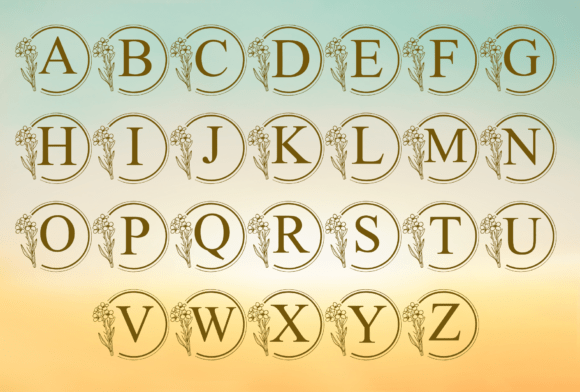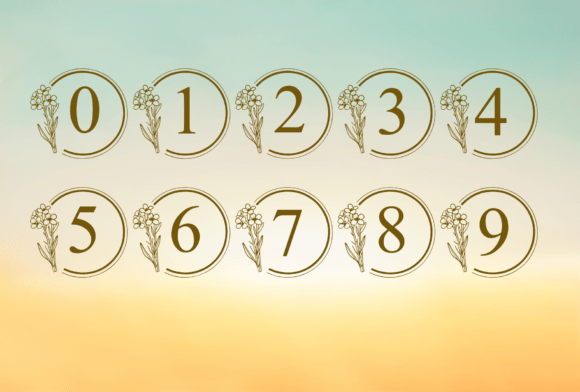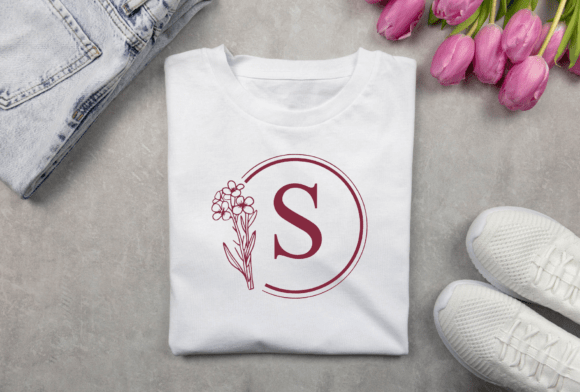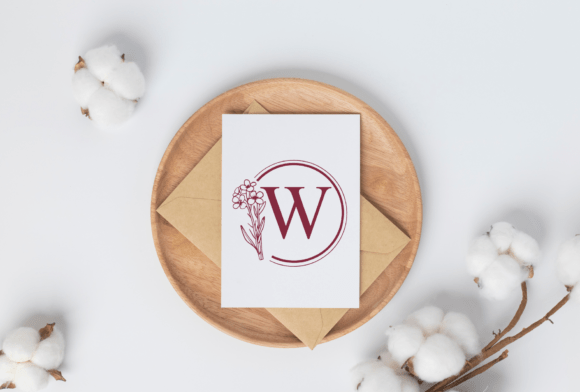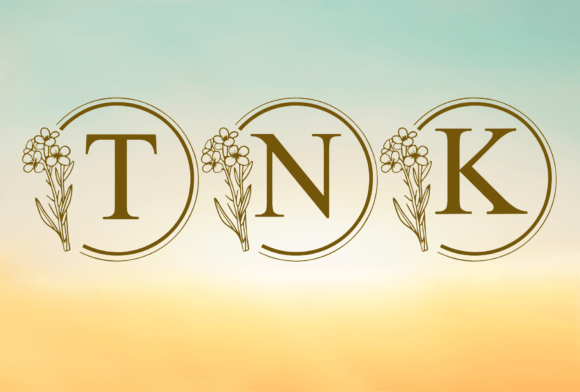
Introduction to Beauty Monogram Font
Do you remember the thrill of creating your first design project? The rush of excitement as you gathered your thoughts, and the satisfaction of bringing your vision to life? For designers, there’s no greater joy than working on a high-quality, creative project that showcases their skills and style.
As you embark on your next design adventure, you may find yourself searching for the perfect font to elevate your project. That’s where the Beauty Monogram Font comes in – a stunning combination of elegant serif and script elements that exudes sophistication and femininity. With its clean lines, botanical accents, and versatile design, this font is a valuable resource for designers looking to create beautiful, memorable logos and branding.
Whether you’re working on a personal monogram, spa logo, or beauty packaging, the Beauty Monogram Font is an excellent choice. Plus, with its transparent background and free download option, it’s an accessible design resource that’s sure to inspire your next creative project.
Key Features of Beauty Monogram Font
- High-quality design for a creative project: The Beauty Monogram Font is designed to add a touch of elegance to any project, making it perfect for wedding invitations, greeting cards, and other special occasions.
- Unique, hand-drawn design: The Beauty Monogram Font features a unique, hand-drawn design that adds a personal touch to any project.
- Perfect for design projects: This font is ideal for designers, artists, and crafters looking for a high-quality, creative design resource.
Honest Review: Beauty Monogram Font
I recently stumbled upon the Beauty Monogram Font, and I must say it’s a great addition to any creative project. As a designer, I’m always on the lookout for high-quality design resources that can elevate my work, and this font definitely delivers.
One of the things I like about the Beauty Monogram Font is its versatility. It’s perfect for creating beautiful monograms, logos, and even social media graphics. The font is available for free download, which is a definite plus, and the transparent background option makes it easy to integrate into any design.
Here are some of the things that work well with the Beauty Monogram Font: ✨ High-quality design ✨ Easy to customize ✨ Great for creative projects ✨ Free download
However, there are a few limitations to keep in mind: ⚠️ Limited character set ⚠️ Not ideal for body text ⚠️ May require additional formatting for some designs
Overall, I’m really impressed with the Beauty Monogram Font. It’s a great design resource that can add a touch of elegance and sophistication to any project. With its high-quality design and versatility, it’s definitely worth considering for your next creative project.
Beauty Monogram Font is perfect for creating social media graphics, business cards, and wedding invitations. It’s also great for adding a touch of elegance to your branding and marketing materials.